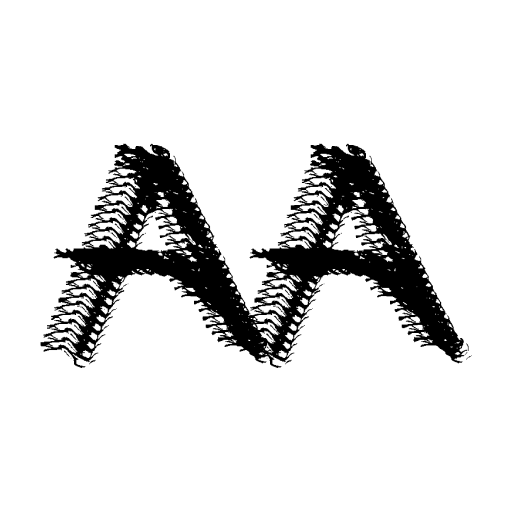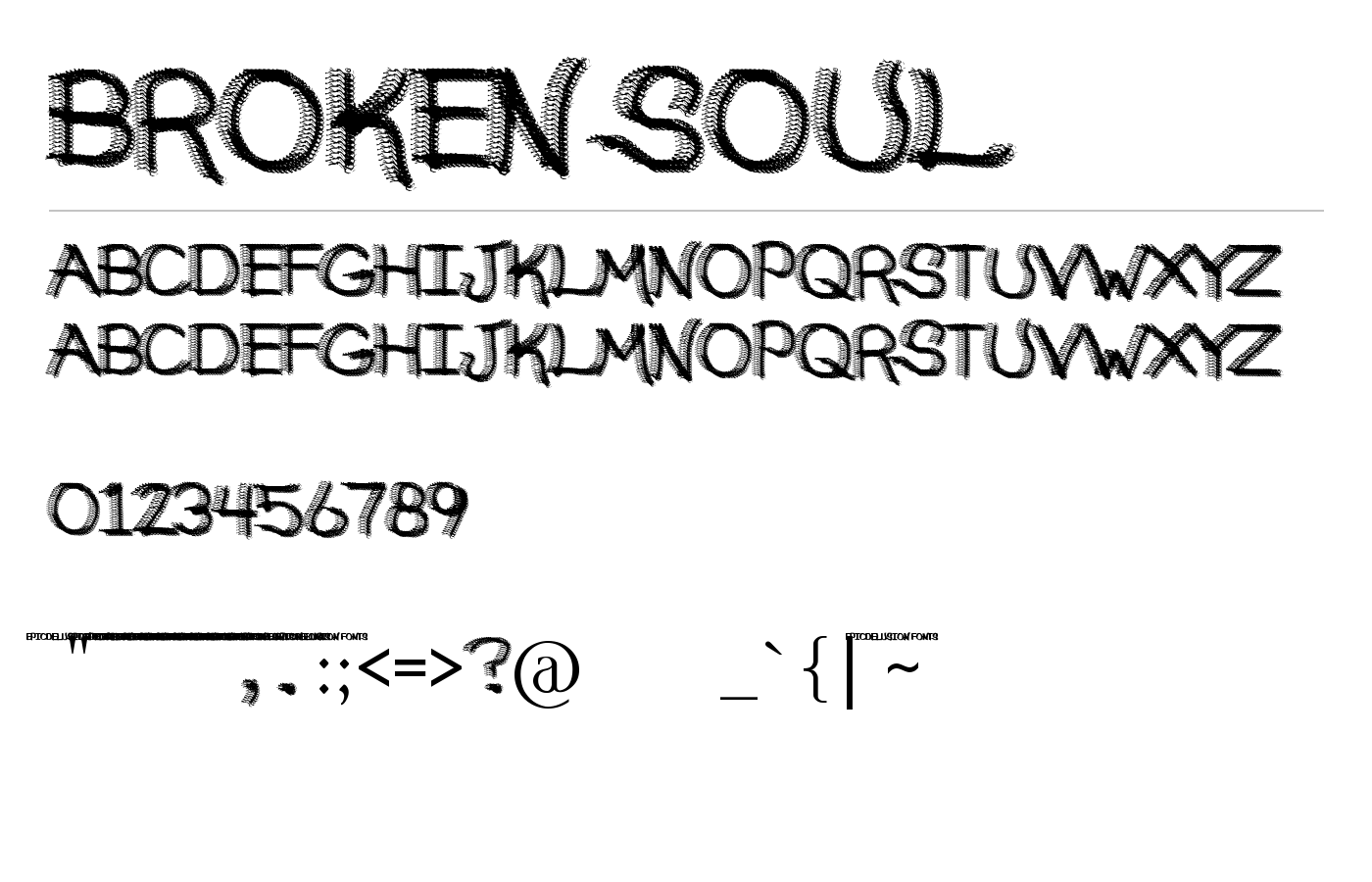
Broken Soul is a distressed, sans serif font with a rough, textured appearance that gives it a raw, edgy personality. Its uneven, jagged strokes and irregular letterforms evoke a sense of intensity and rebellion, making it ideal for creative projects that seek to convey emotion or a grunge-inspired aesthetic. This font works best in display uses such as logos, posters, or album covers where a strong, expressive impact is desired.
Broken Soul Font
About Broken Soul Font
| Designer | Tom Kolodziejski |